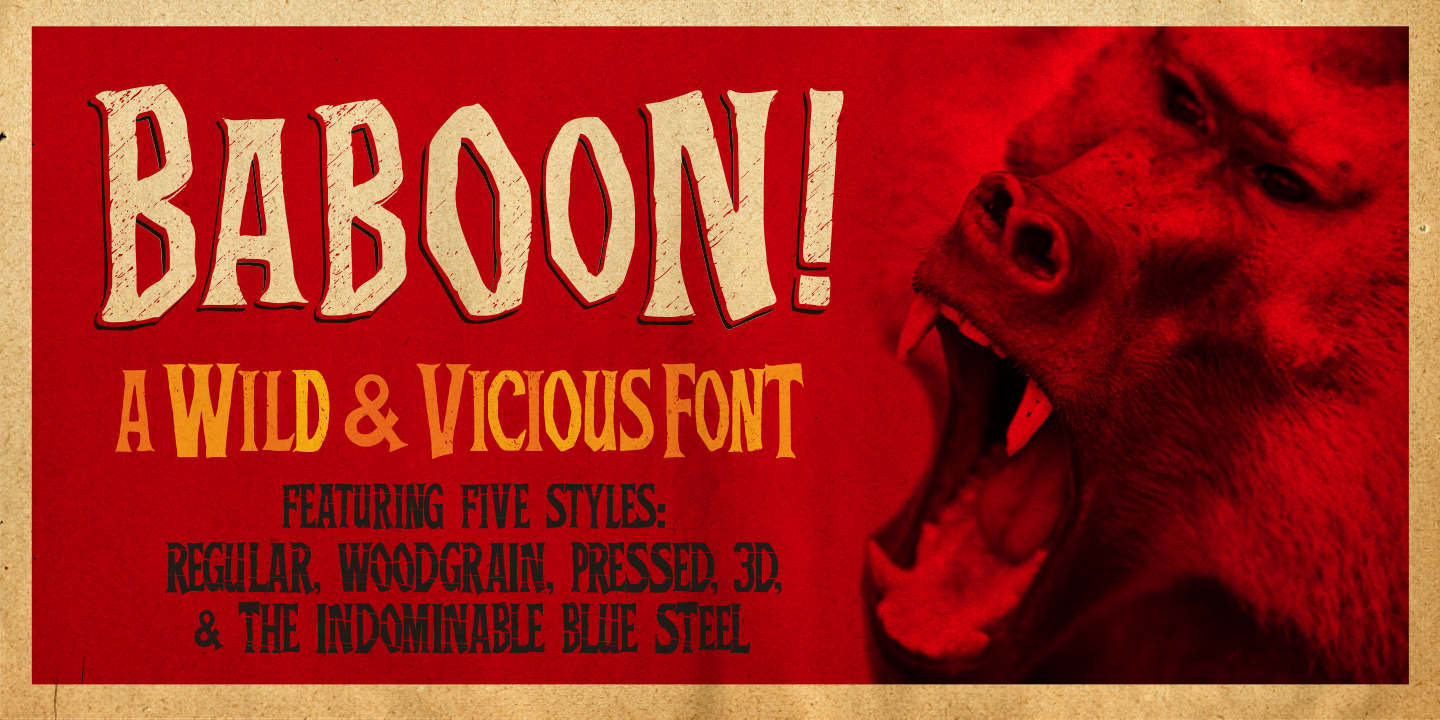
Baboon Font is perfect for branding projects, logo design, poster creation, magazine layouts, book covers, advertising campaigns, social media graphics, packaging design, website headers, and creative typography projects that require a bold and distinctive appearance.
What makes Baboon Font so exciting is its unique character structure that combines playful elements with professional readability. This font captures attention immediately while maintaining excellent legibility across different sizes and applications. Its distinctive personality makes it stand out in crowded design spaces, offering designers a perfect balance between creativity and functionality.
Baboon Font family includes multiple weights and styles: Regular, Bold, Light, Medium, Italic variations, and Extended versions. Each variant maintains the core aesthetic while offering different levels of visual impact, giving designers comprehensive options for their creative projects.
Whether you're working on digital platforms or print media, Baboon Font Free Download provides exceptional versatility. This typeface works beautifully in both display and text applications, making it an invaluable addition to any designer's font library. The font's modern approach to traditional letterforms creates a timeless quality that will remain relevant across various design trends. Its careful construction ensures optimal performance across different devices and printing methods, while its unique character makes every project memorable and engaging for audiences.